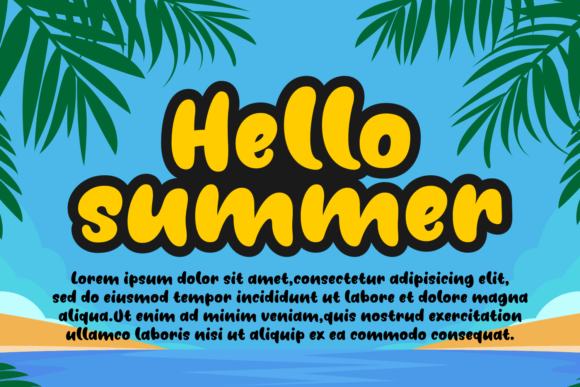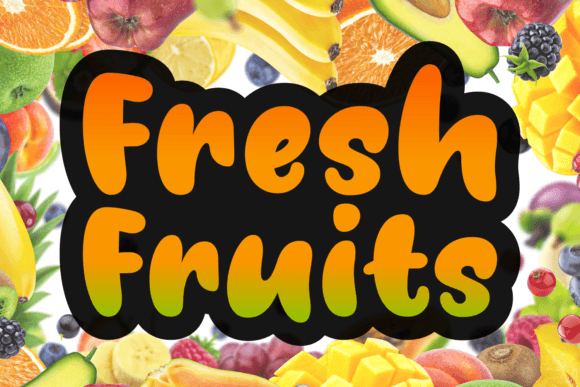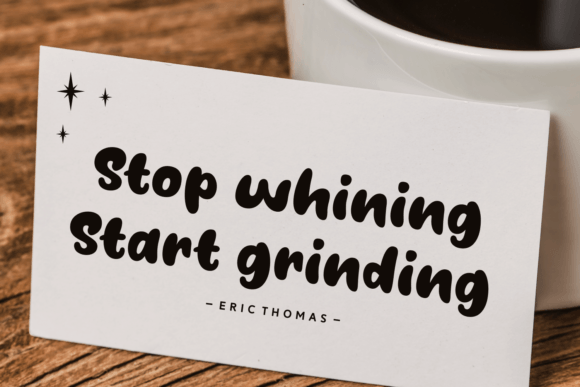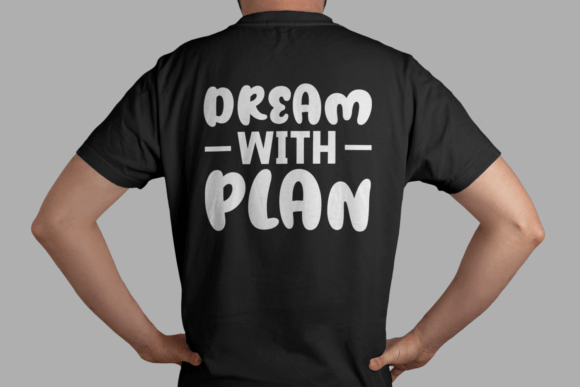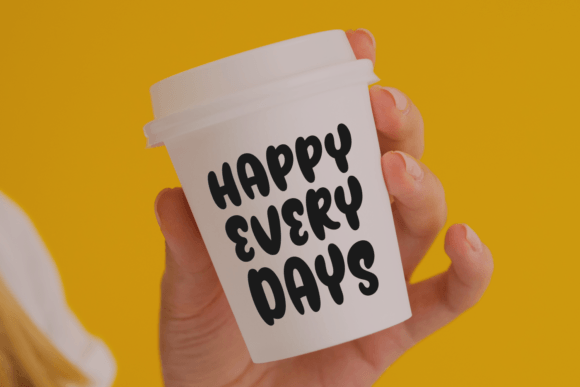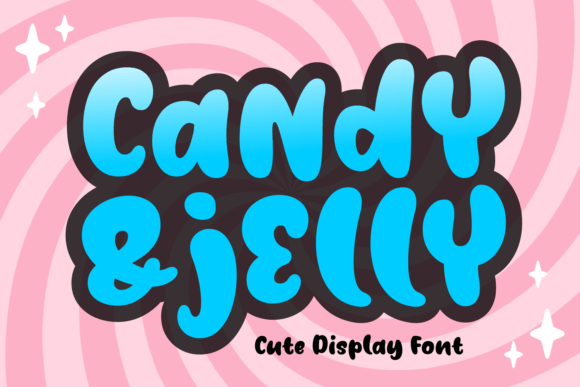
Candy and Jelly Font: Adding a Playful Twist to Your Designs
In the world of typography, fonts play a crucial role in conveying the tone and personality of a design project. If you’re looking for a font that exudes fun, energy, and playfulness, look no further than the Candy and Jelly font. This delightful display font is perfect for designers and crafters who want to add a touch of whimsy to their creations.
The Characteristics of Candy and Jelly Font
Candy and Jelly is a playful and bulky display font that boasts bold letterforms and bouncy curves. Its unique design makes it an excellent choice for creating eye-catching designs that grab attention. The font’s playful vibe is reminiscent of childhood treats, making it perfect for projects that require a lighthearted and youthful approach.
Key Features of Candy and Jelly Font
- Playful and Bulky Design: The font’s bold and chunky letterforms make it perfect for creating designs that stand out.
- Bouncy Curves: The font’s curved lines and rounded edges give it a fun and energetic feel.
- Display Font: Candy and Jelly is designed specifically for display purposes, making it ideal for headlines, titles, and other attention-grabbing elements.
Uses of Candy and Jelly Font
Candy and Jelly font is versatile and can be used in a variety of design projects, including:
- Branding and Packaging: Add a playful touch to your brand’s logo, packaging, or labeling.
- Signage and Posters: Create eye-catching signs and posters that grab attention.
- Digital Graphics: Use the font in social media graphics, blog headers, and other digital elements.
- Crafting and Scrapbooking: Add a fun and playful touch to your scrapbooking and crafting projects.
Tips for Using Candy and Jelly Font
To get the most out of Candy and Jelly font, follow these tips:
- Use it Sparingly: Due to its bold and playful nature, it’s best to use the font sparingly to avoid overwhelming the design.
- Pair it with Other Fonts: Combine Candy and Jelly with other fonts to create a unique and visually appealing contrast.
- Experiment with Colors: The font looks great in bright and bold colors, so don’t be afraid to experiment and find the perfect hue for your design.
Candy and Jelly font is a fun and playful display font that can add a touch of whimsy to any design project. Its bold letterforms and bouncy curves make it perfect for creating eye-catching designs that grab attention. Whether you’re a designer or crafter, this font is sure to inspire your creativity and bring a smile to your face. So why not give it a try and see how Candy and Jelly font can elevate your designs?
In conclusion, Candy and Jelly font is a fantastic addition to any designer’s or crafter’s toolkit. Its playful and energetic vibe makes it perfect for a wide range of projects, from branding and packaging to digital graphics and crafting. So go ahead, get creative, and have fun with Candy and Jelly font!